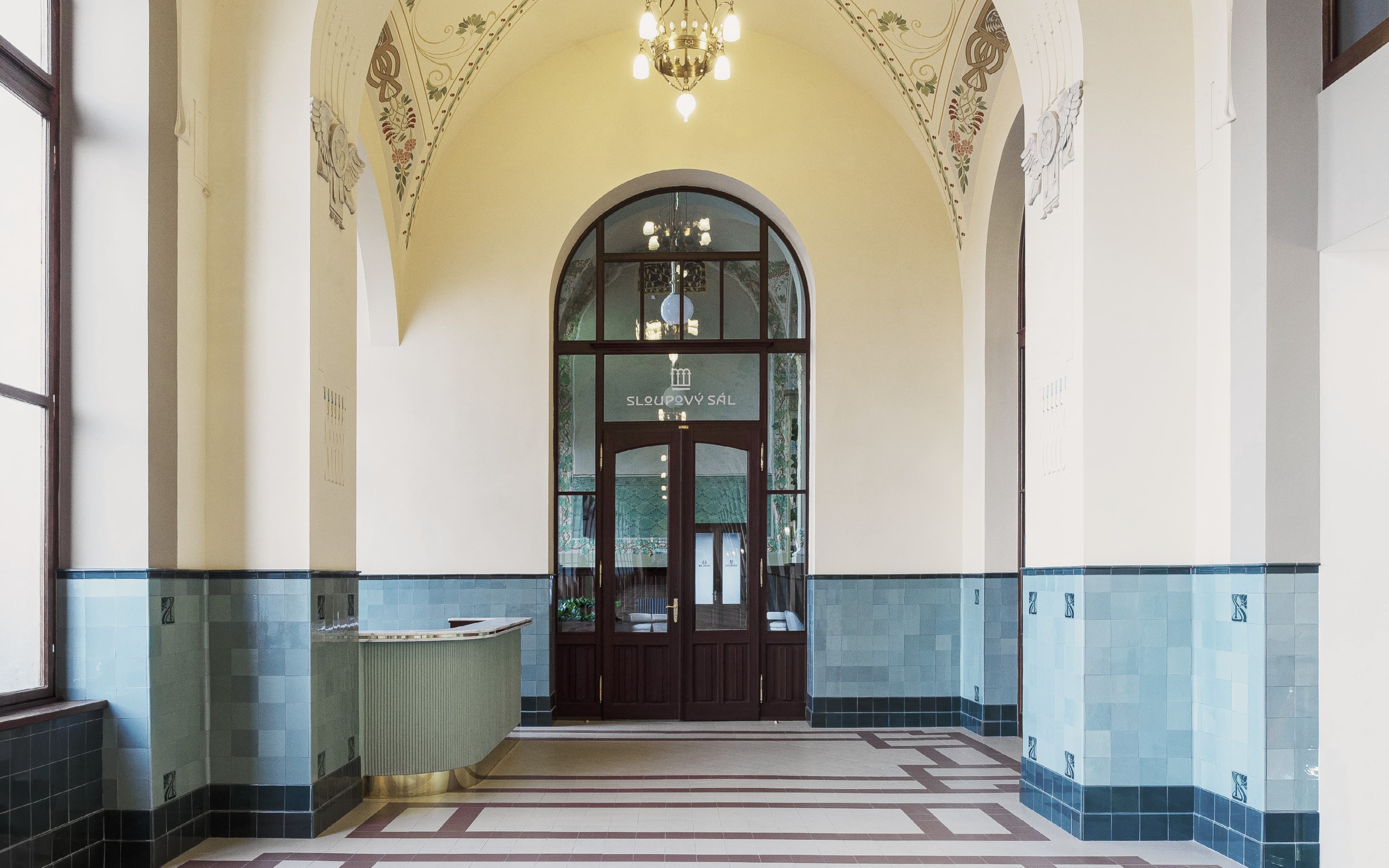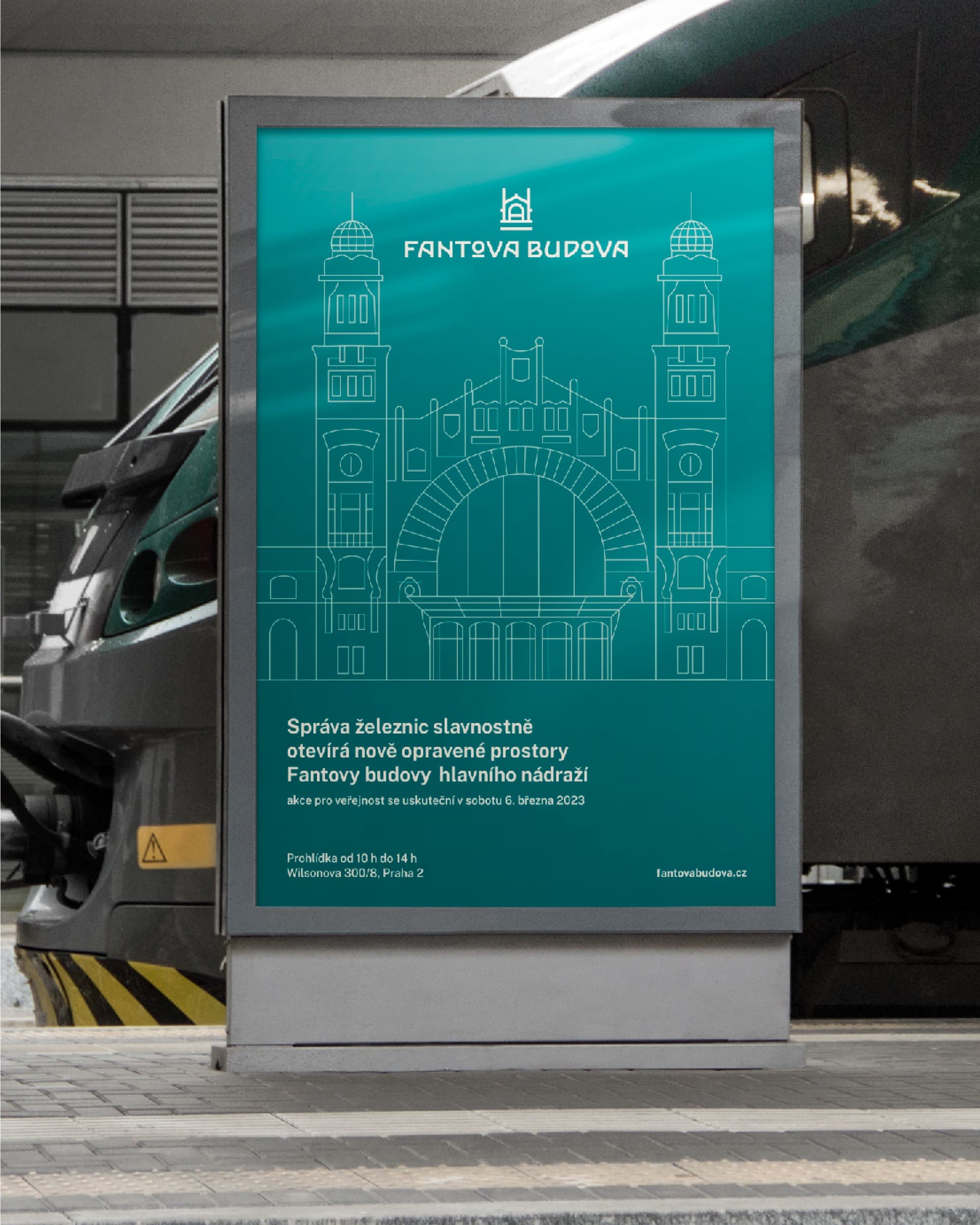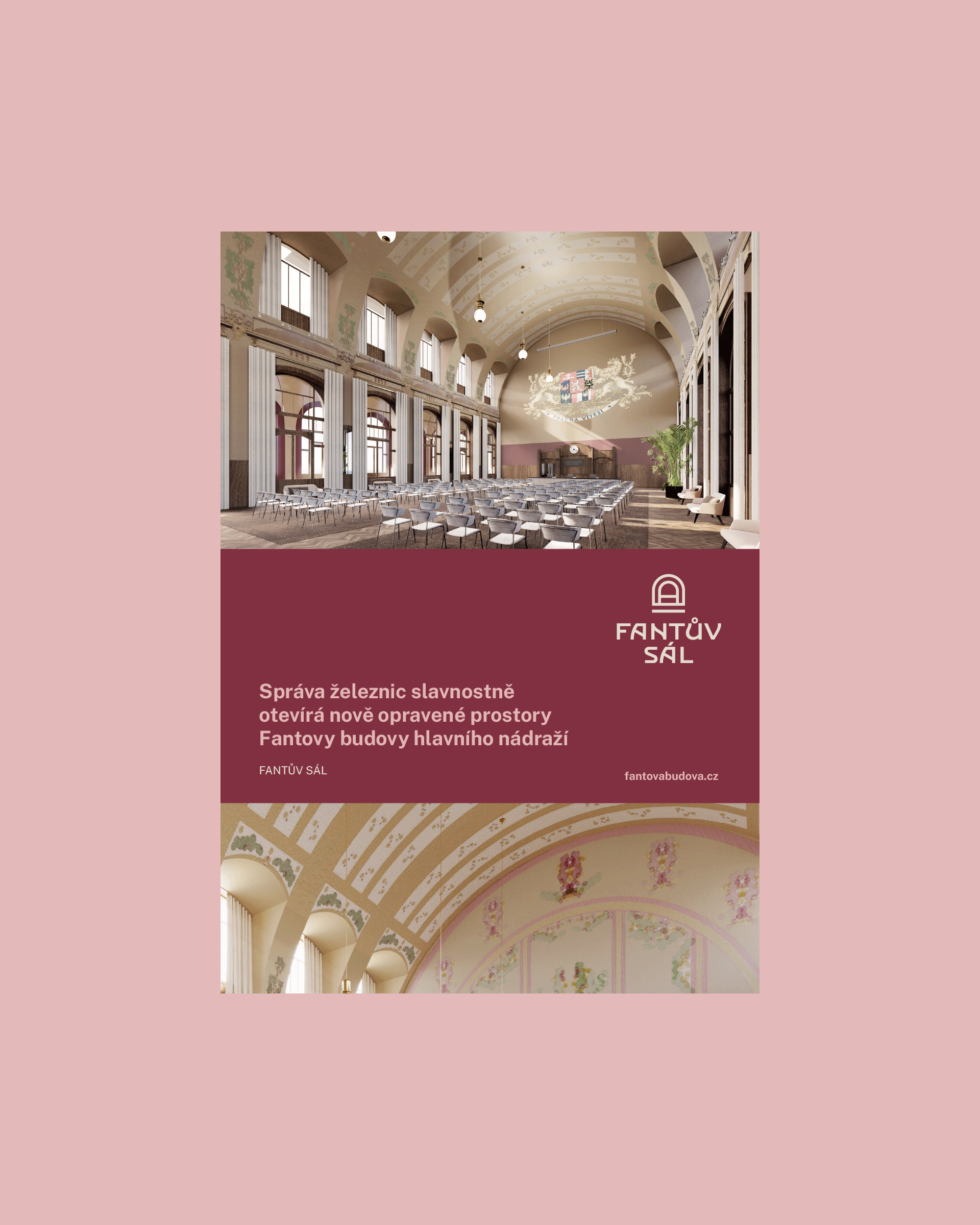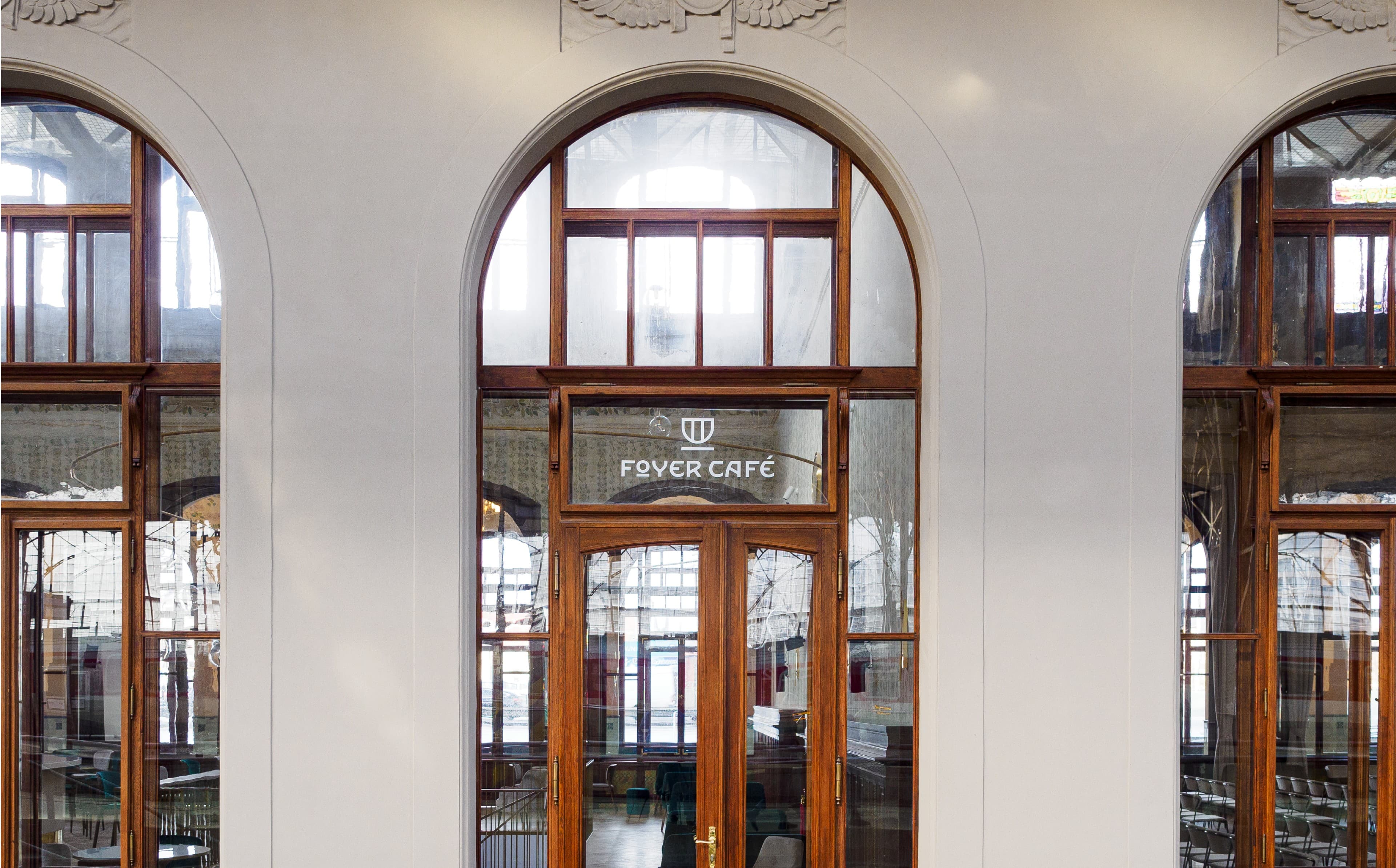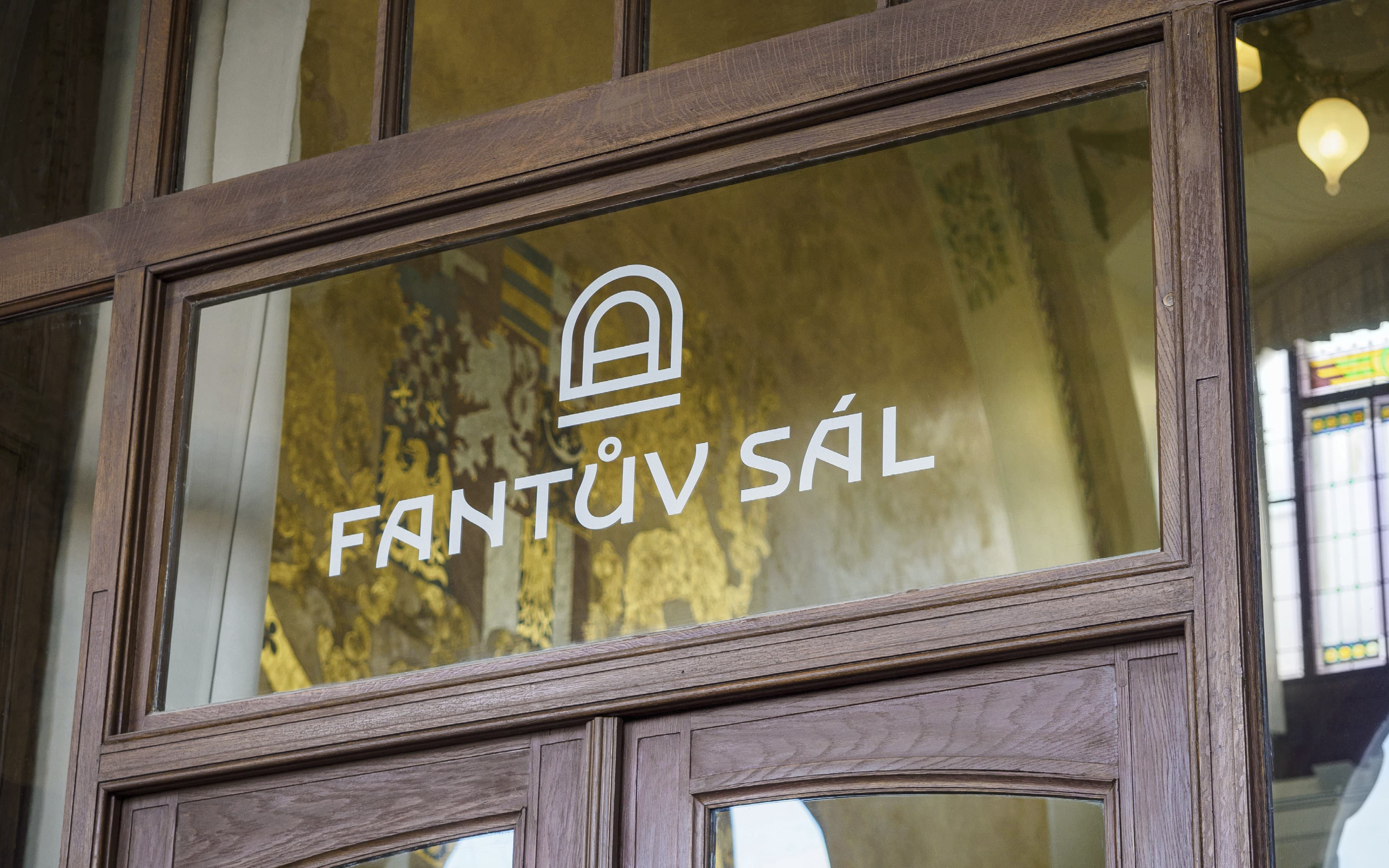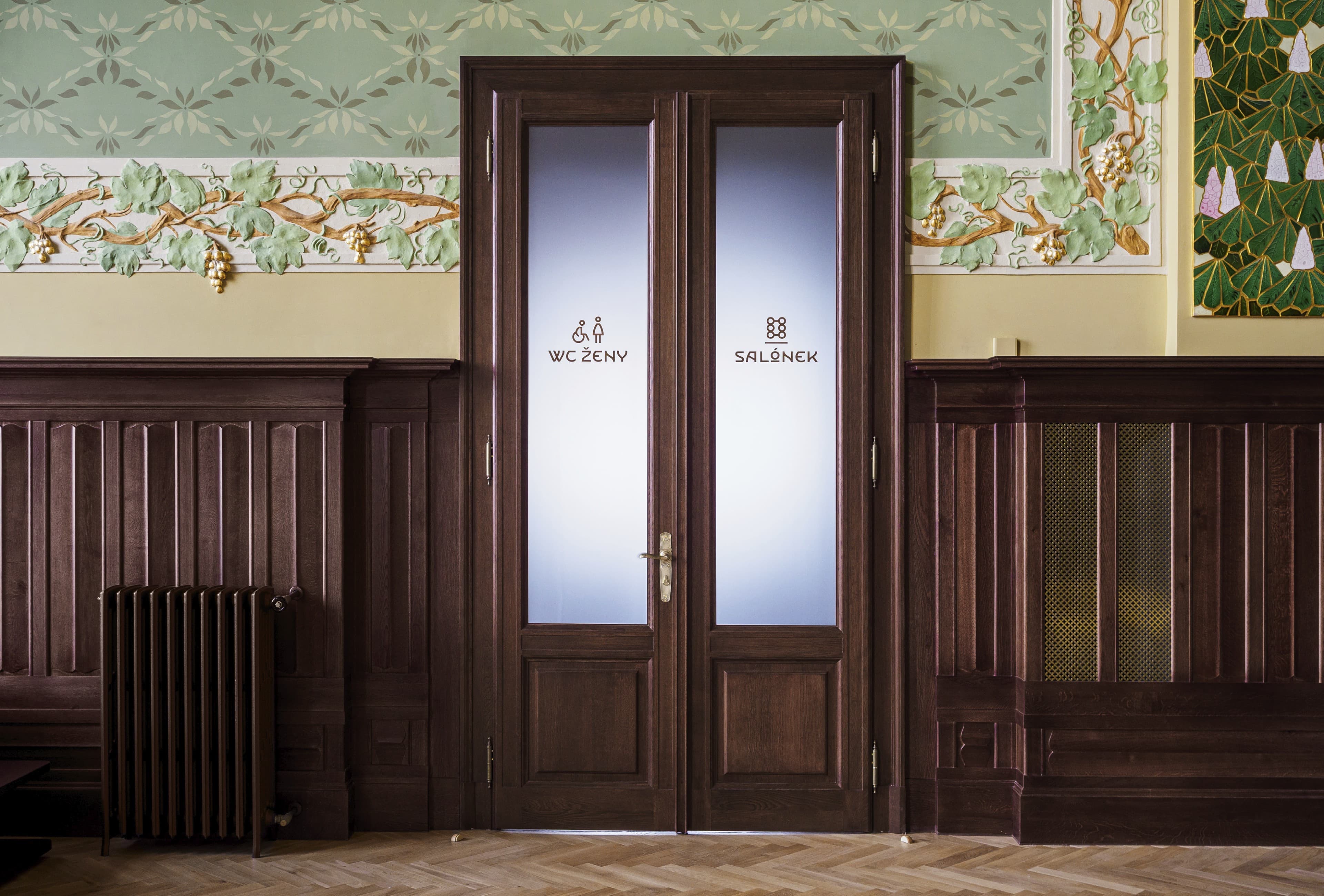
Fanta
The Fanta Building at the Main Railway Station is the largest and one of the most significant Art Nouveau buildings in the Czech Republic. It was designed by architect Josef Fanta and served as the station’s passenger terminal from 1909 until 1977, when a new brutalist underground concourse and subterranean platforms were opened.
The Main Station in Prague was long called Gare Wilson in honor of the American president who played a significant role in the history of the creation of Czechoslovakia. In the sumptuously furnished lounges for distinguished guests were waiting for the train Thomas Alva Edison, Le Corbusier or Charlie Chaplin.
For the renovation of the historic main railway station in Prague, an uppercase typeface was created, drawing inspiration from the original architectural plans and the surviving Art Nouveau interior typography. The character set includes several alternate forms and custom ligatures, allowing for greater variety and expressiveness in display typography.